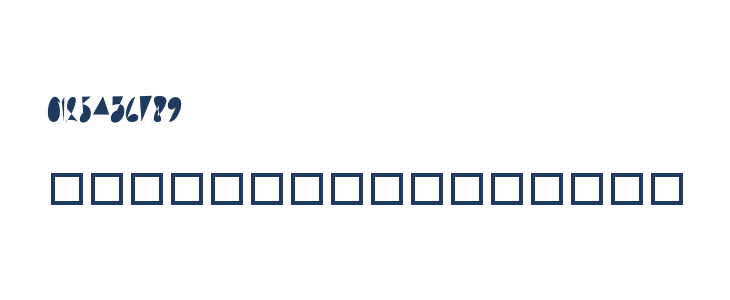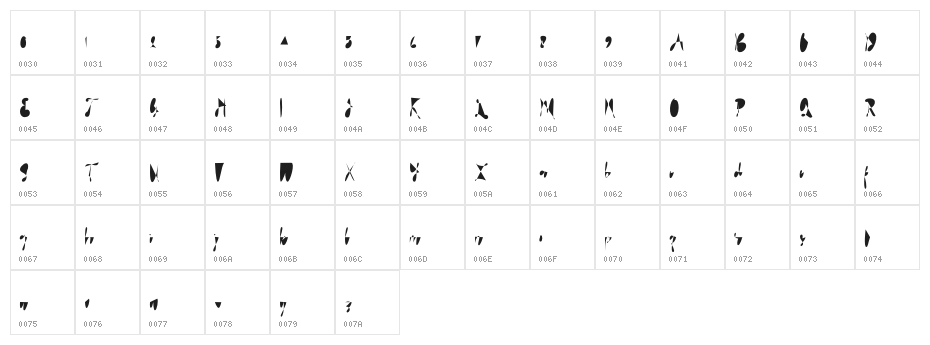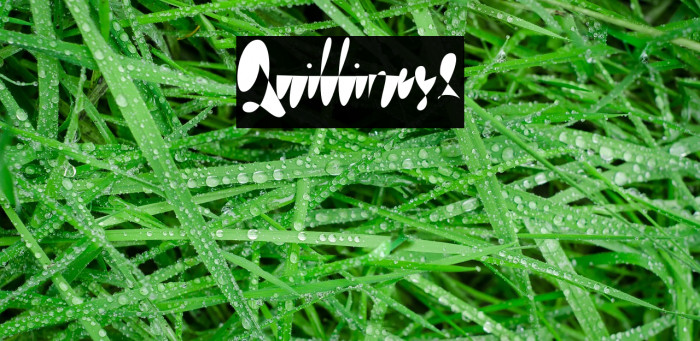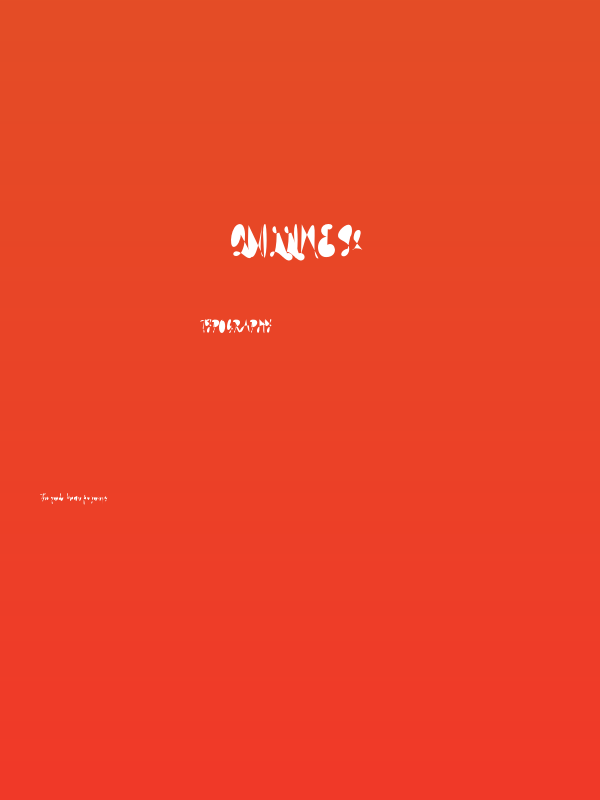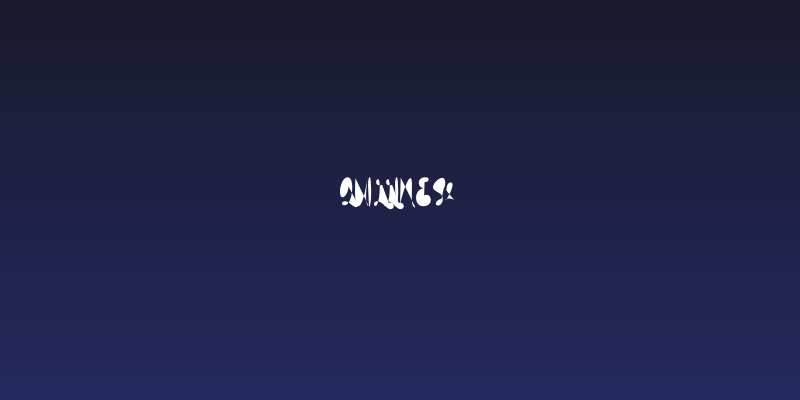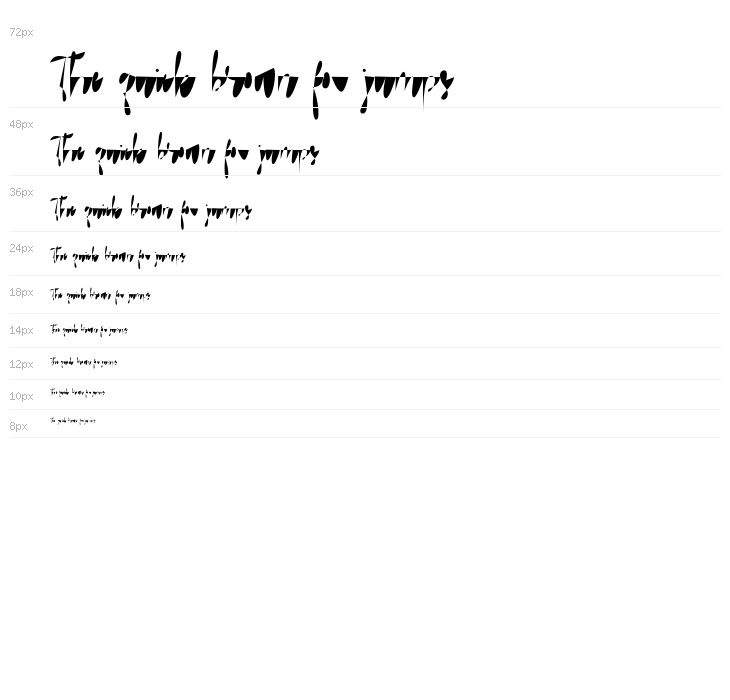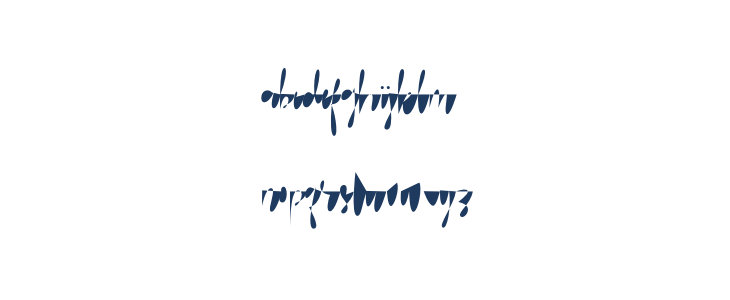
Quillines2 Font
Quillines2 Description
This font features a highly decorative and artistic style, characterized by its unique and abstract letterforms. The strokes are bold and exhibit a high contrast, with some parts of the letters appearing fragmented or sliced. This creates a dynamic and visually striking appearance. The uppercase letters are particularly elaborate, with sharp angles and curves that give them a sense of movement. The lowercase letters maintain the same artistic flair, though they are slightly more subdued in their design. Numbers and special characters follow the same stylistic approach, ensuring consistency across the font. The overall aesthetic is modern and avant-garde, making it suitable for creative and unconventional design projects.
| Overall Style | Modern, Avant-garde |
| Use Case | Headlines, Logos, Artistic projects |
| Proposed Projects | Ideal for artistic posters, album covers, branding for creative industries, and any project seeking a modern and edgy look. |